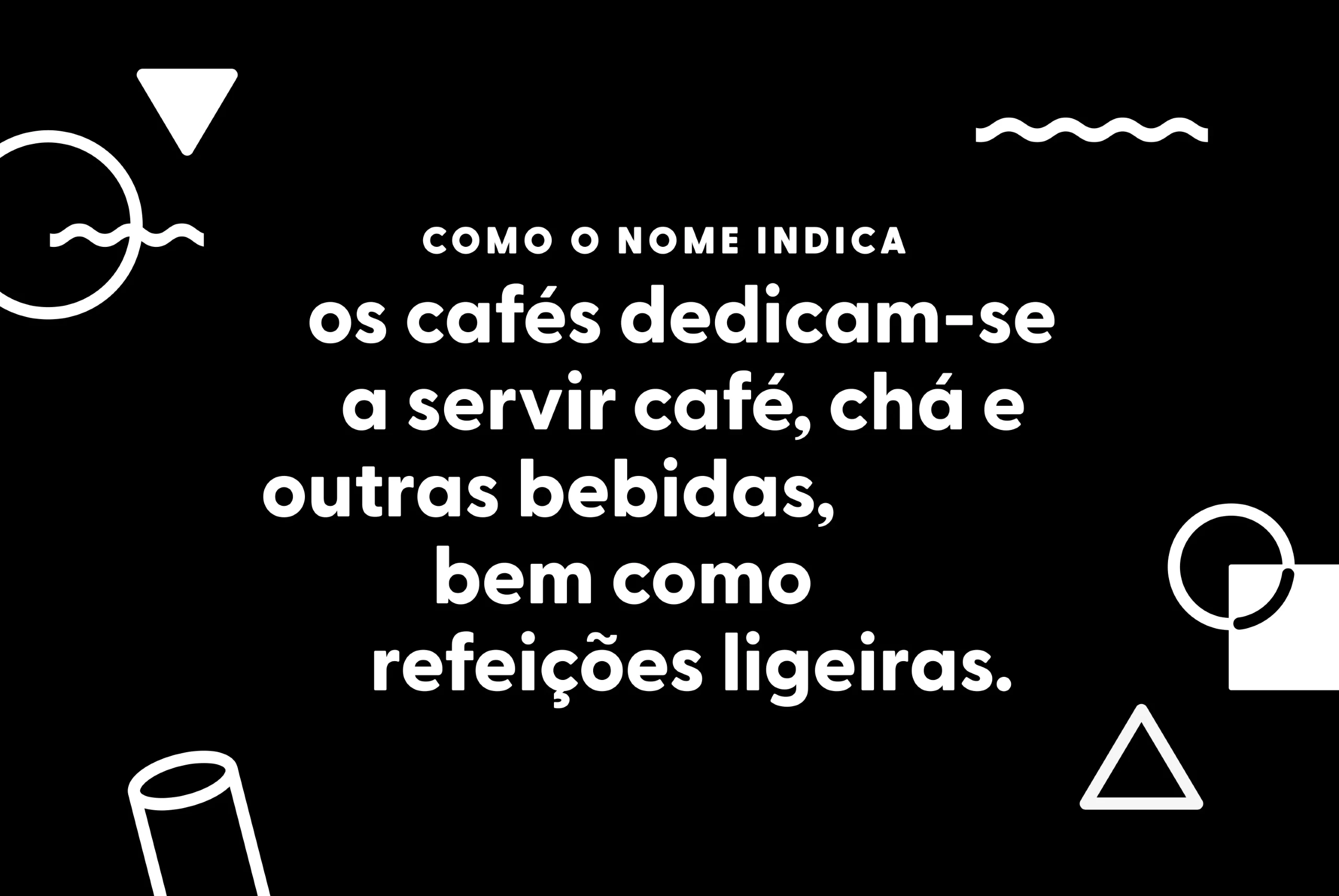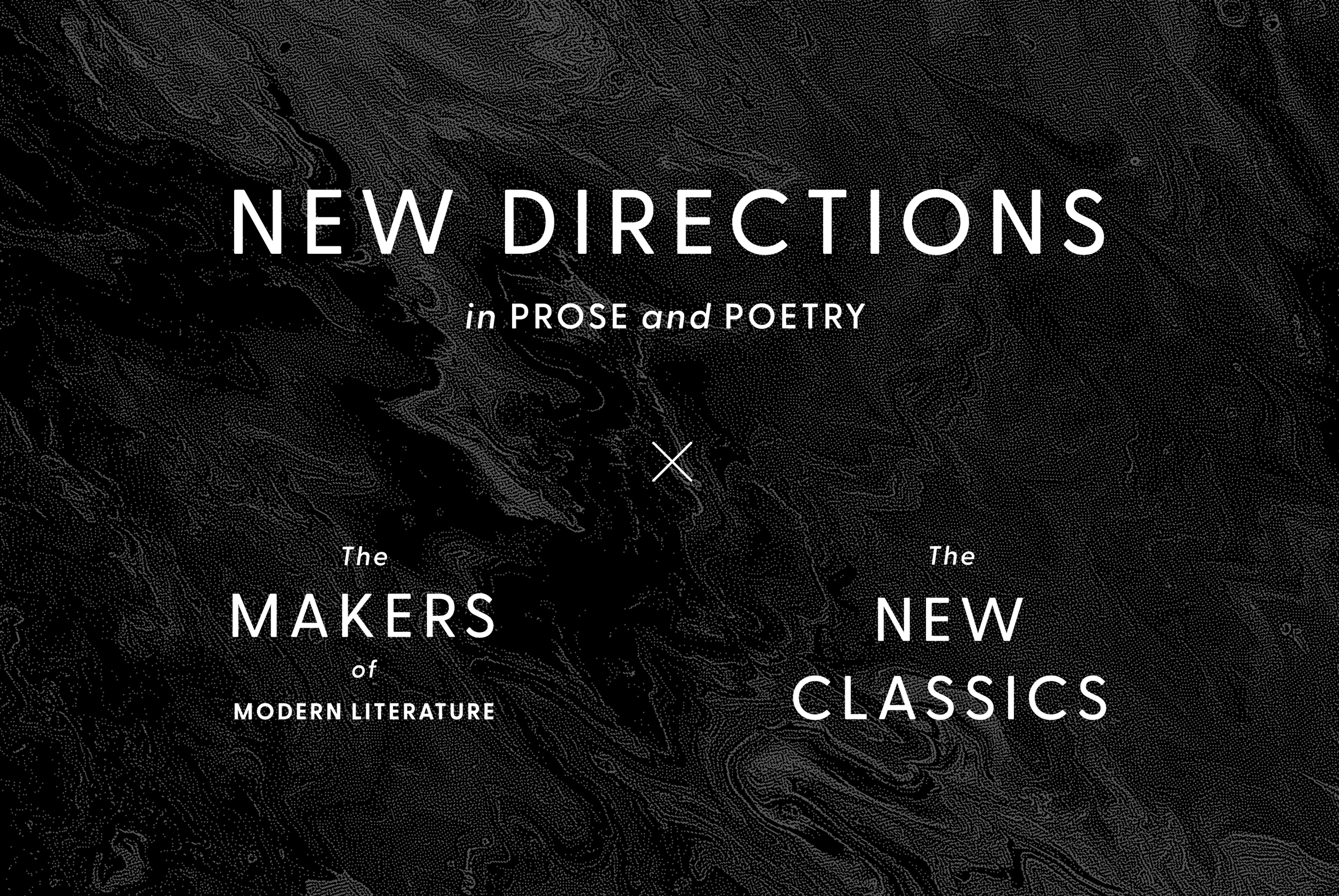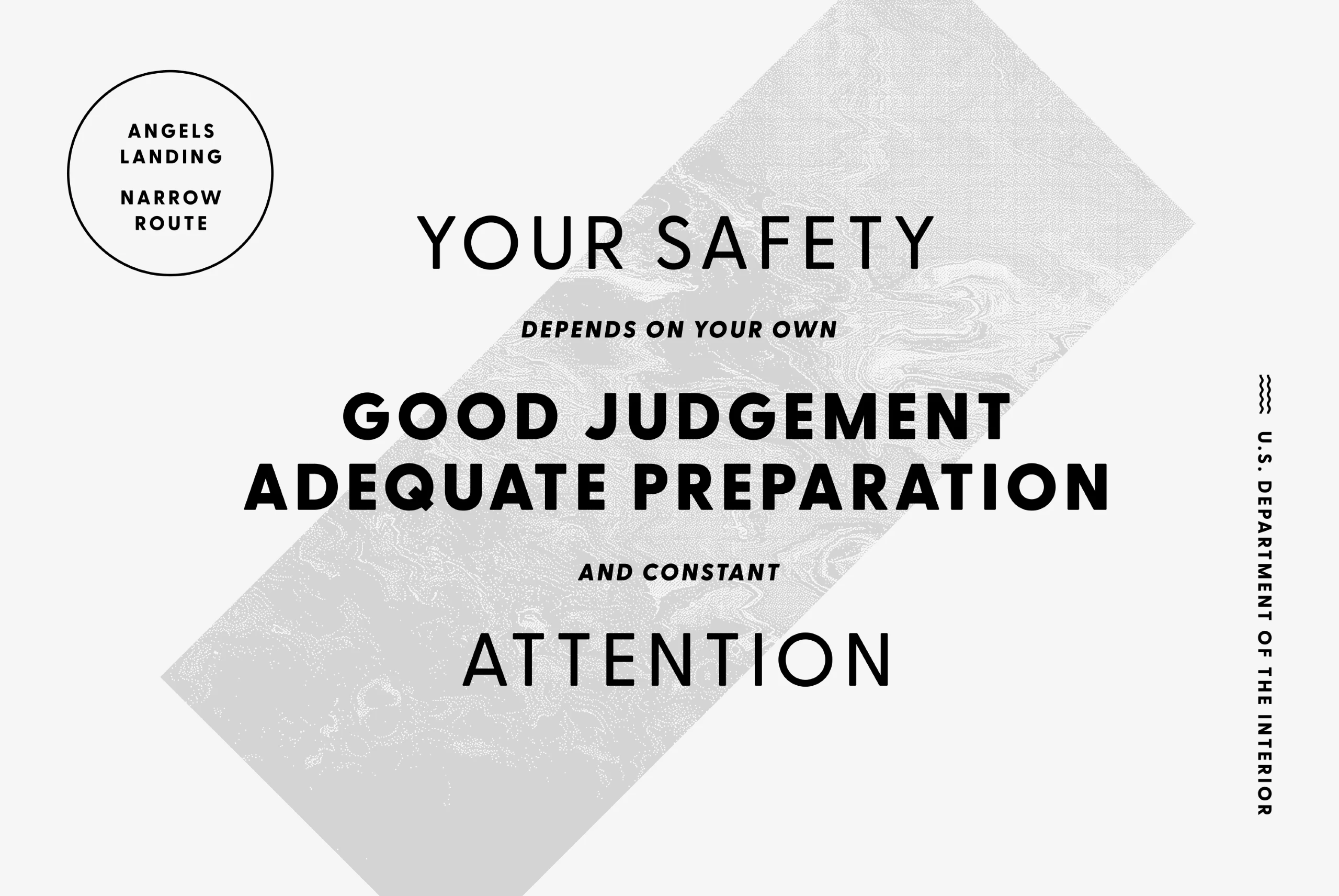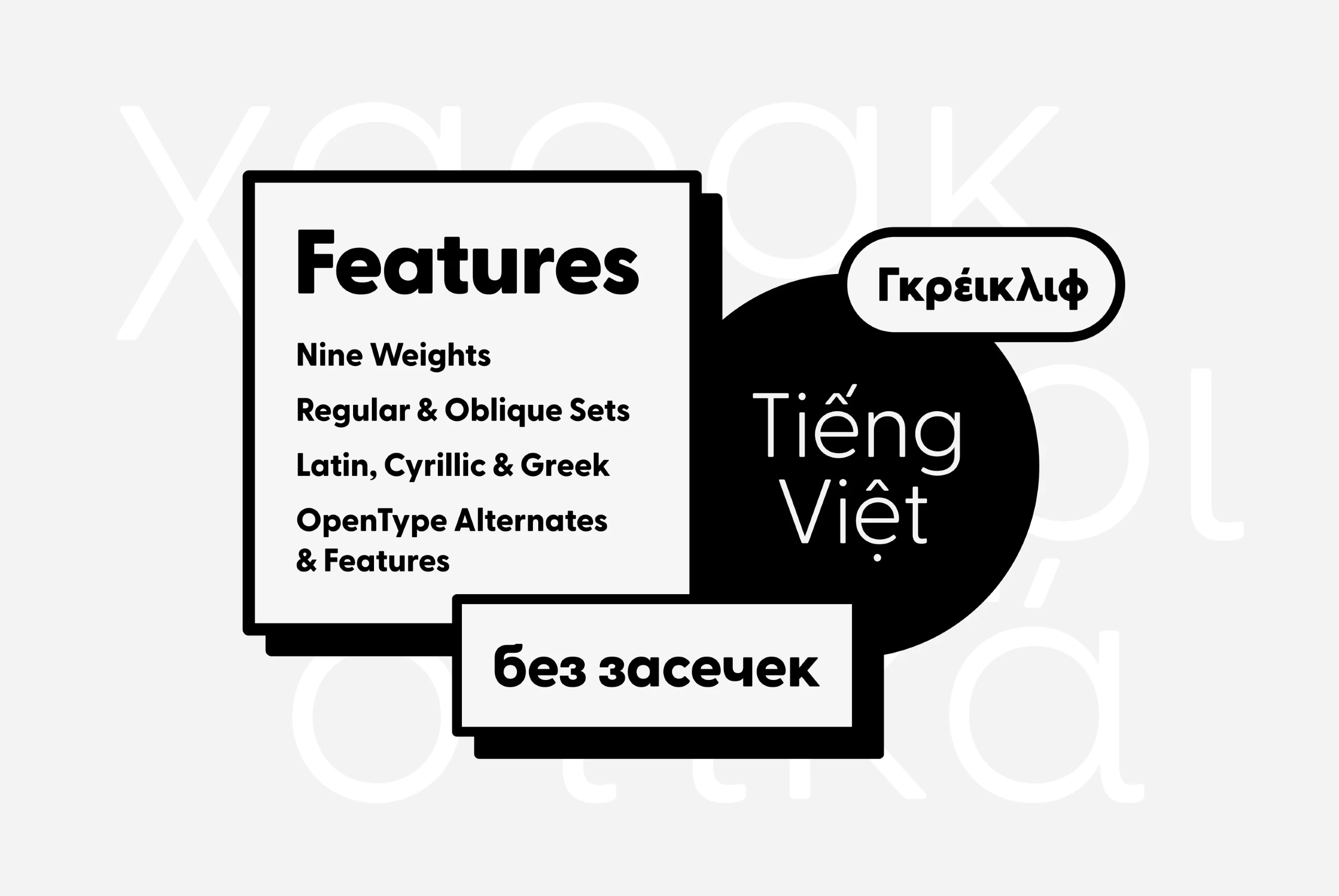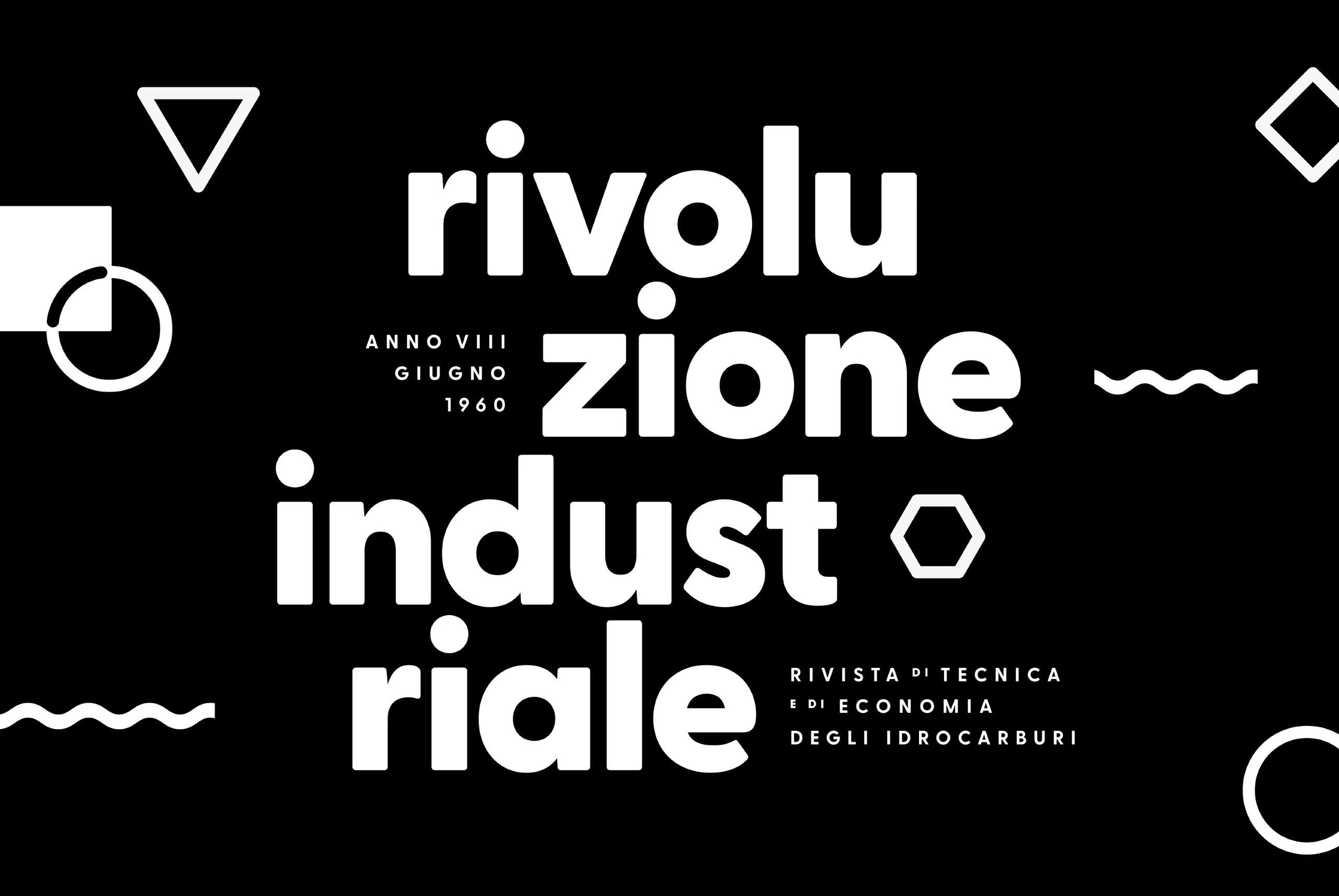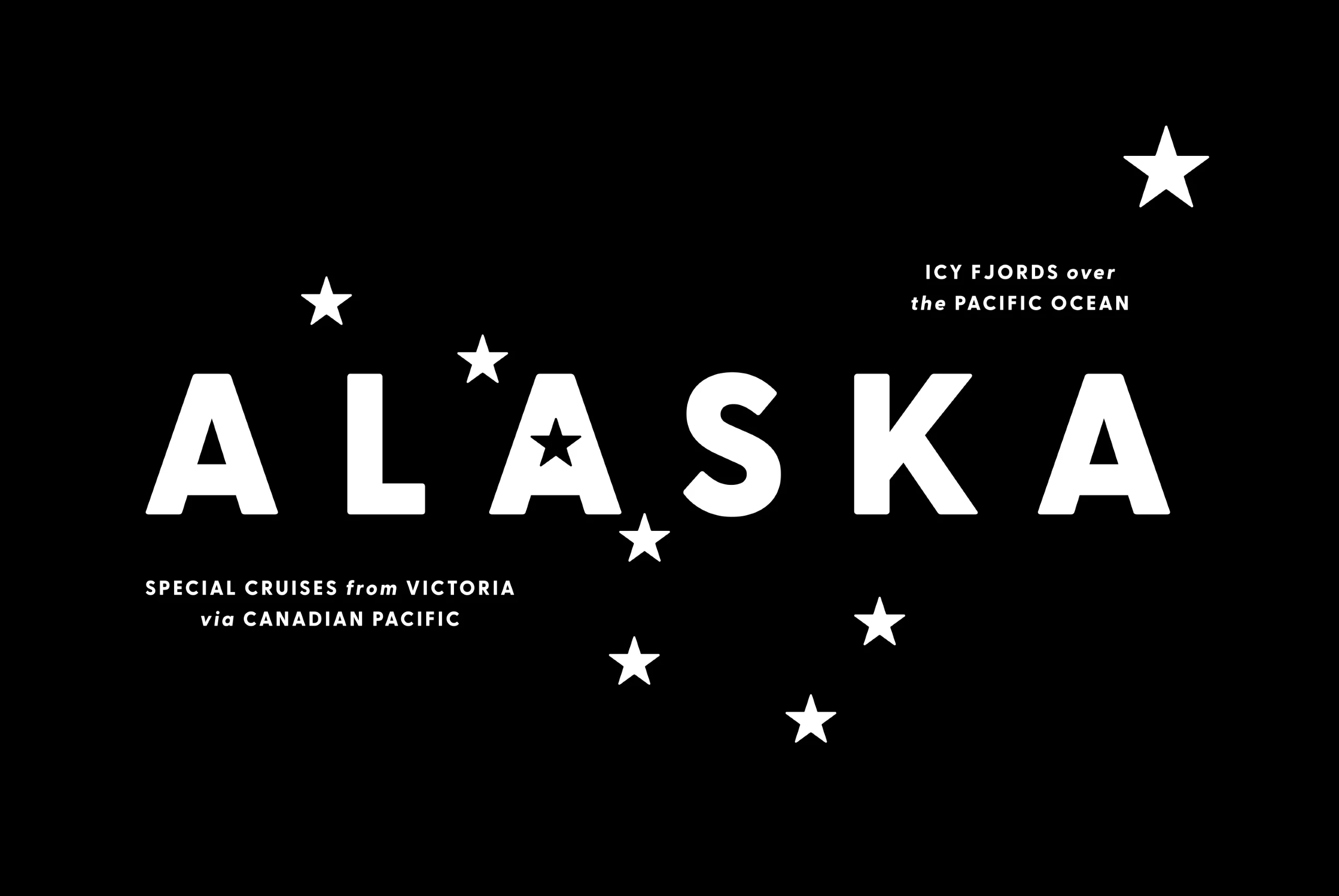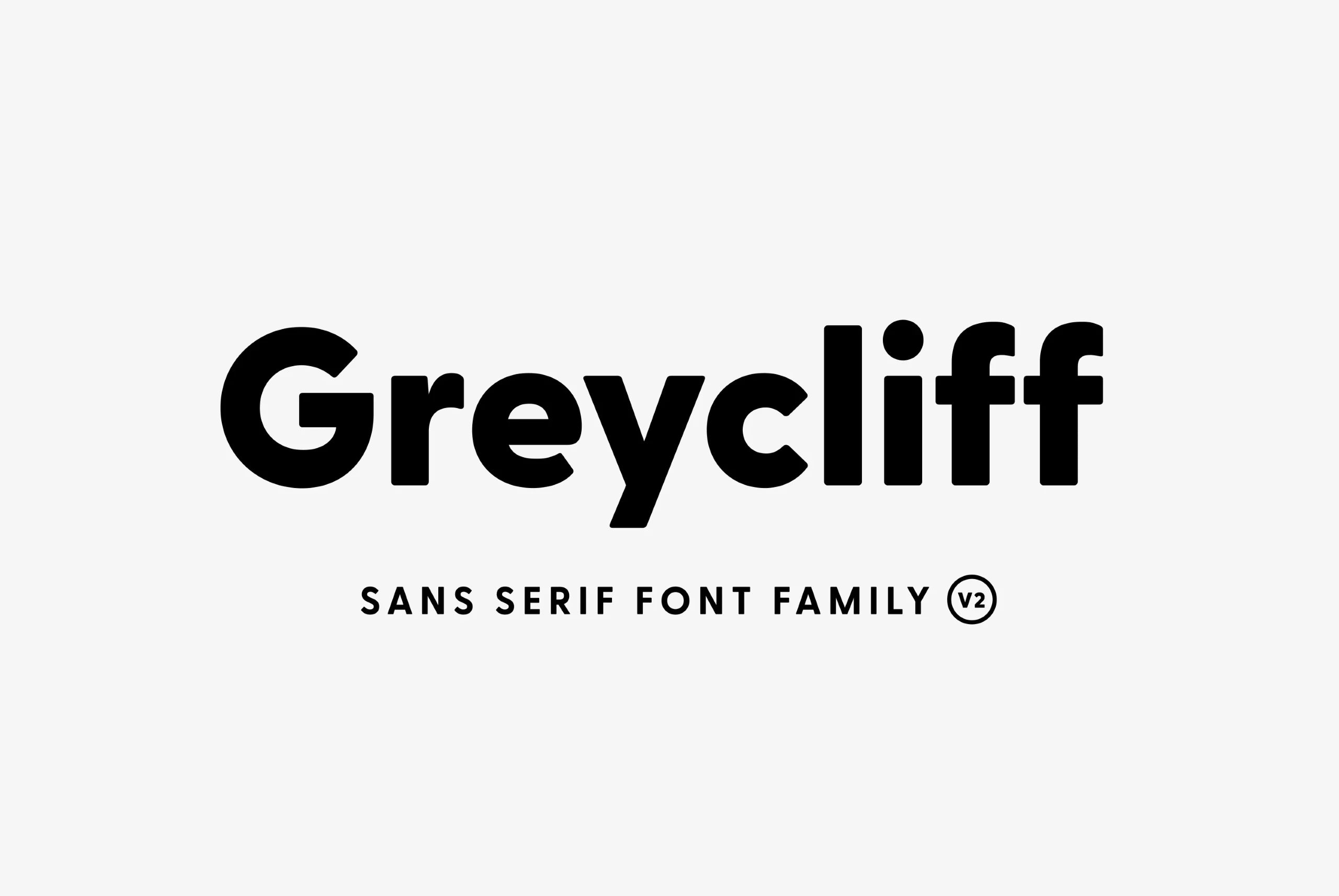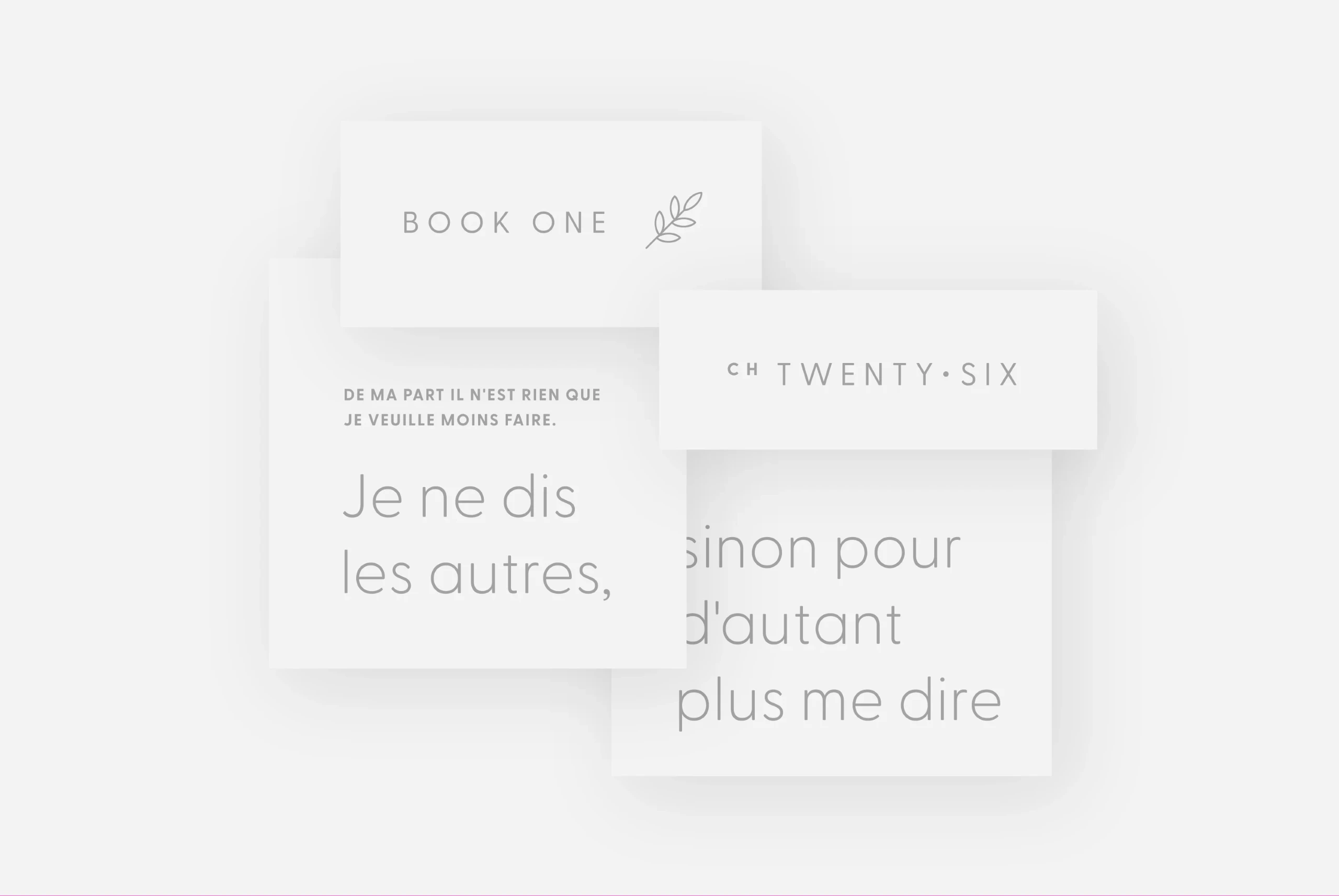
Greycliff
Greycliff Font Family
Rugged, hearty, and warm, Greycliff© CF is a versatile font family. Strong capitals and a smooth, open lowercase are effective in a variety of applications. The geometric, near-monoline construction lends Greycliff a classic durability reminiscent of the 1940s, tempered by softened edges and vibrant shapes.
nine Weights in Latin & Greek • Cyrillic • Vietnamese • Pinyin Script
Language support includes Belarusian, Bulgarian, Catalan, Chinese Pinyin, Croatian, Czech, Danish, Dutch, English, Filipino, Finnish, French, Fula, German, Greek, Hungarian, Indonesian, Italian, Latvian, Macedonian, Malay, Maltese, Norwegian, Polish, Portuguese, Romanian, Russian, Serbian, Slovak, Slovenian, Spanish, Swedish, Turkish, Ukrainian, Uzbek, Vietnamese
Greycliff font by Connary Fagen Fonts — the words “COMO O NOME INDICA os cafés dedicam-se a servir café, chá e outras bebidas, bem como refeições ligeiras.” in a sans-serif upright typeface, surrounded by abstract geometric shapes including circles, triangles, and wavy lines Greycliff font by Connary Fagen Fonts — the words “NEW DIRECTIONS” in upright sans-serif capitals, “in PROSE and POETRY” in smaller italic sans-serif, a small X icon, and two columns of text below it, “The MAKERS of MODERN LITERATURE” and “The NEW CLASSICS” Greycliff font by Connary Fagen Fonts — the words “YOUR SAFETY DEPENDS ON YOUR OWN GOOD JUDGEMENT ADEQUATE PREPARATION AND CONSTANT ATTENTION” in sans-serif capitals over a gray textured diagonal rectangle, with “ANGELS LANDING NARROW ROUTE” in a circle and “U.S. DEPARTMENT OF THE INTERIOR” vertically on the right Greycliff font by Connary Fagen Fonts — the word “Features” above a list of font features, and three speech bubbles with text in Greek, Vietnamese, and Cyrillic. Greycliff font by Connary Fagen Fonts — the words “rivoluzione industriale” in large, bold, sans-serif letters, with smaller text “ANNO VIII GIUGNO 1960” and “RIVISTA DI TECNICA E DI ECONOMIA DEGLI IDROCARBURI” surrounded by abstract geometric shapes and wavy lines Greycliff font by Connary Fagen Fonts — the word “ALASKA” in large sans-serif capitals, with stars replacing the two A’s and scattered around the text, and smaller sans-serif text reading “ICY FJORDS over the PACIFIC OCEAN” and “SPECIAL CRUISES from VICTORIA via CANADIAN PACIFIC” Greycliff font by Connary Fagen Fonts — the word “Greycliff” in a sans serif font, with “SANS SERIF FONT FAMILY” and “V2” in a circle below it Greycliff font by Connary Fagen Fonts — the words “BOOK ONE” with a leaf icon, “CH TWENTY-SIX” with dot separators, and French text in upright sans-serif letterforms
Contextual Alternates
Stylistic Set 1
Stylistic Set 2
Stylistic Set 3
Fractions
Tabular Figures
Ordinals
Superscript
Numerators
Denominators
Case-Sensitive Forms